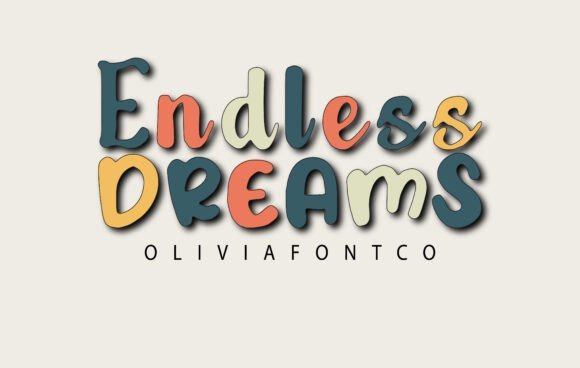
Unleashing Your Creativity with Endless Dreams
You’ve spent hours brainstorming the perfect idea, and finally, it hits you – that eureka moment when everything falls into place. The excitement is palpable, and you can’t wait to bring your vision to life. But, how do you translate that spark into a visually stunning creation?
That’s where the Endless Dreams Font comes in – a game-changing typography solution designed to elevate your creative ideas to new heights. This versatile font is perfect for a wide range of designs, from magazine headlines to social media graphics, wedding invitations, and beyond. Its legibility and aesthetic appeal make it an invaluable asset for designers looking to take their projects to the next level.
Endless Dreams Font Key Features
- Font Family: Endless Dreams is a modern script font designed to evoke a sense of elegance and sophistication. It is available in multiple font styles, including Regular, Italic, Bold, and Bold Italic.
- Character Set: The font includes a comprehensive character set, covering Latin, Cyrillic, and Greek alphabets, as well as a range of punctuation marks and symbols.
- Unique Characteristics: Endless Dreams Font features a unique, flowing script style with subtle connections between letters, giving it a sense of elegance and sophistication. The font also includes a range of ligatures and swashes, adding to its unique character.
Designer Review: Endless Dreams Font
✨ The Endless Dreams Font is a beautiful, elegant font that I’ve enjoyed working with. Its flowing curves and subtle flair give it a sense of sophistication and whimsy. It’s perfect for creating a dreamy, ethereal atmosphere in your designs. I’ve used it for titles and headings, and it always adds a touch of magic to the layout.
✨ One of the standout features of this font is its versatility. It works well for both digital and print designs, and can be used in a variety of contexts, from fashion and beauty to lifestyle and wellness. The font’s high legibility also makes it a great choice for body text, where readability is key.
⚠️ One of the limitations of the Endless Dreams Font is its lack of bold weights. While the regular and italic weights are beautiful, a bold weight would add more versatility to the font and make it more suitable for use in headings and titles where boldness is needed.
⚠️ Another limitation is the font’s limited language support. While it supports many popular languages, it may not be suitable for designs that require support for less common languages.
Overall, I’m very happy with the Endless Dreams Font. It’s a beautiful, elegant font that’s perfect for creating a dreamy, ethereal atmosphere in your designs. While it has some limitations, its versatility and high legibility make it a great choice for a wide range of design projects.
- Beautiful, elegant design
- High legibility
- Perfect for digital and print designs
- Works well for titles and headings
- Supports many popular languages
Some popular use cases for the Endless Dreams Font include:
– Creating dreamy and ethereal headings and titles.
– Designing fantasy and sci-fi themed projects.
– Adding a touch of whimsy and magic to your designs.
– Experimenting with bold and colorful text combinations.